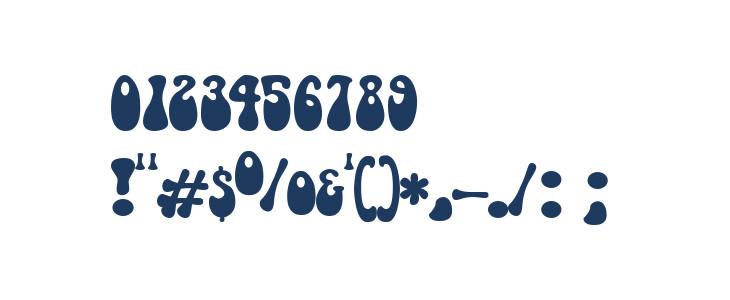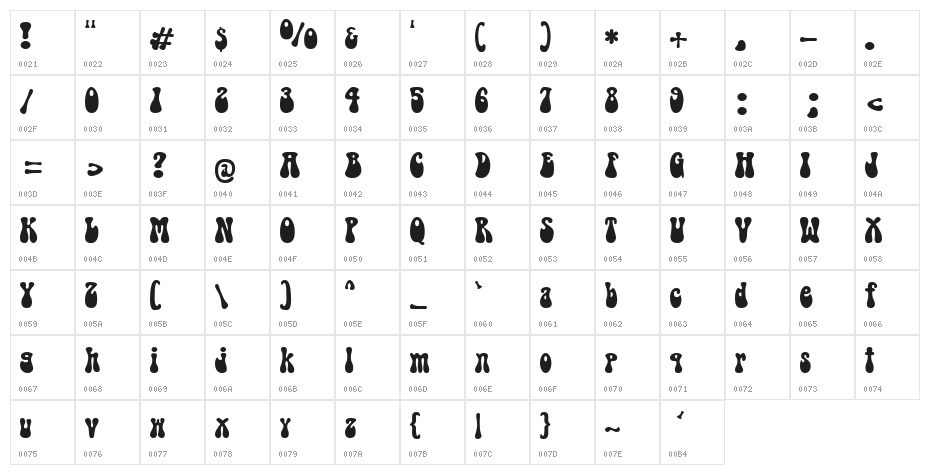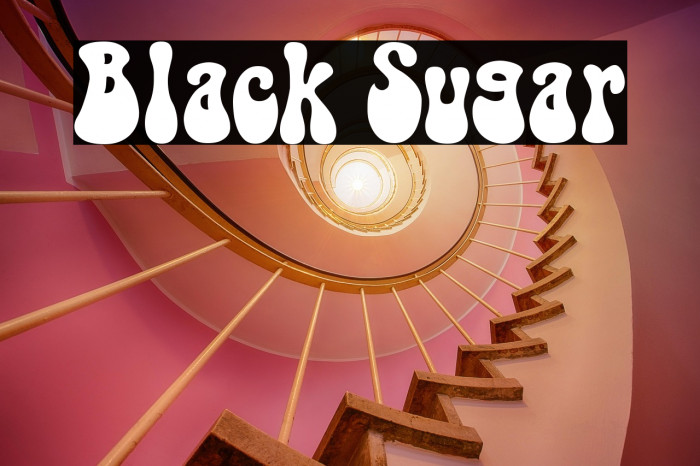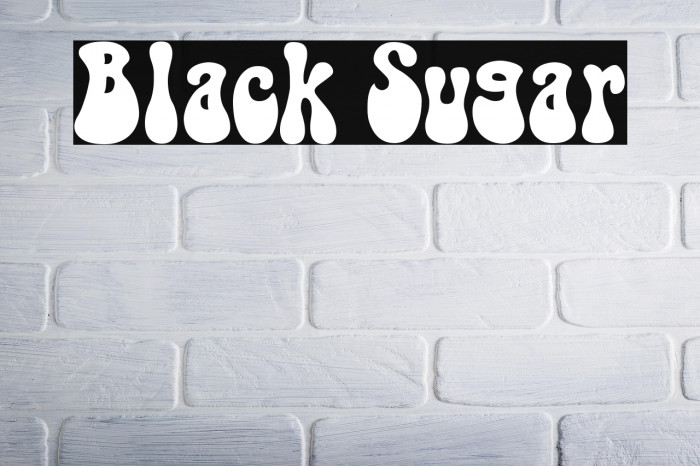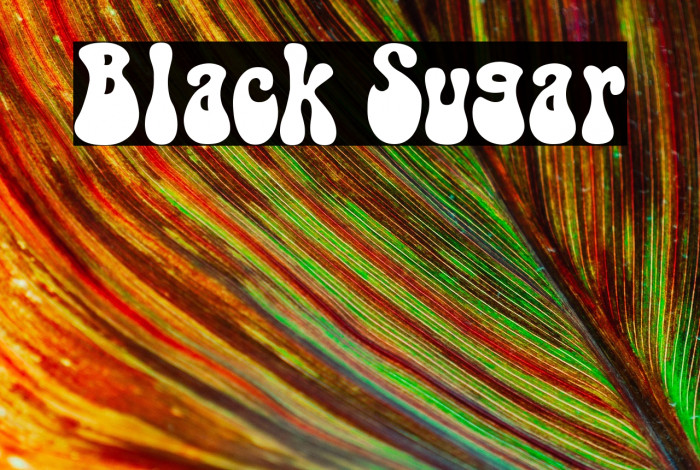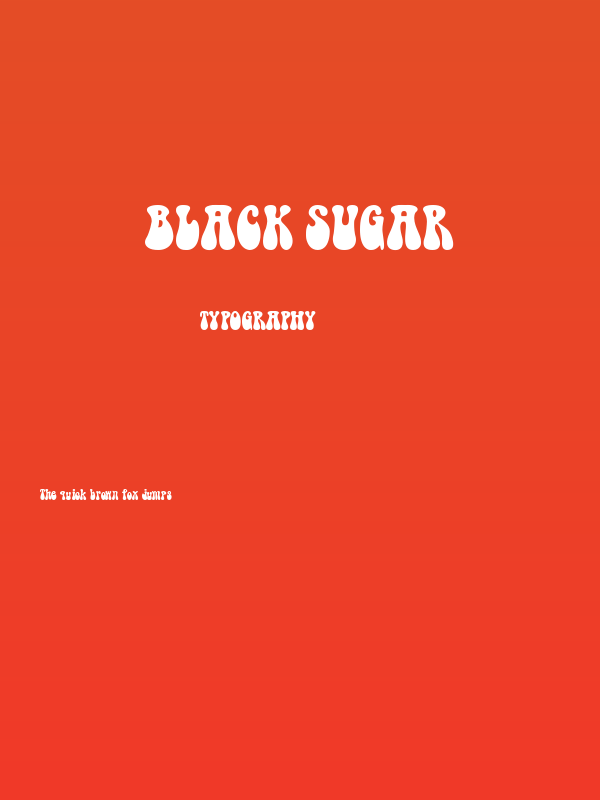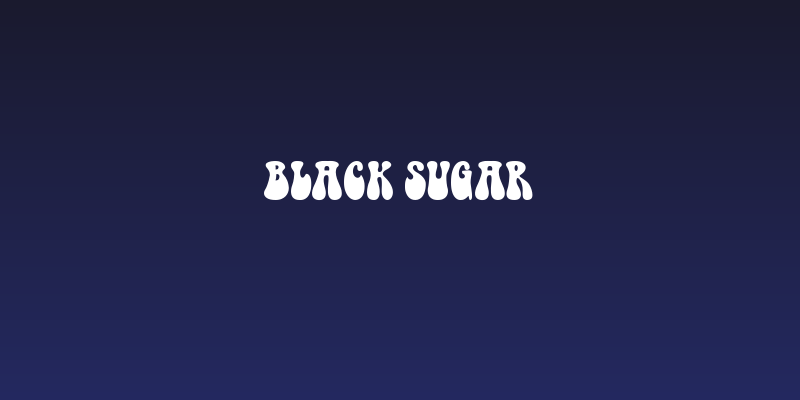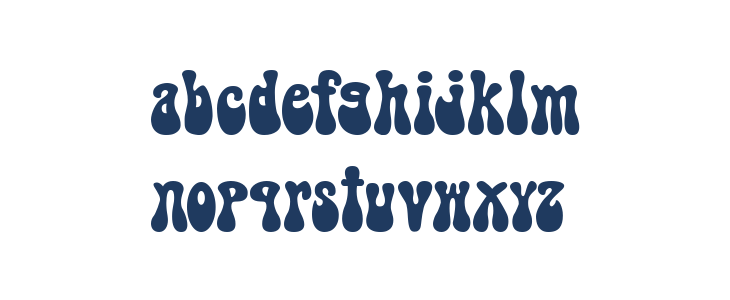
Black Sugar Font
Black Sugar Description
This font features a bold and playful design with a distinctive, bubbly appearance. Each character is crafted with thick, rounded strokes that give it a whimsical and lively feel. The letters have a unique, organic shape that resembles liquid droplets, making it stand out with its artistic flair. The font maintains consistency in its exaggerated curves and rounded edges, creating a cohesive and eye-catching look. It's perfect for projects that require a fun and engaging typeface, offering a sense of movement and energy. The numbers and special characters follow the same design principles, ensuring uniformity across all glyphs.